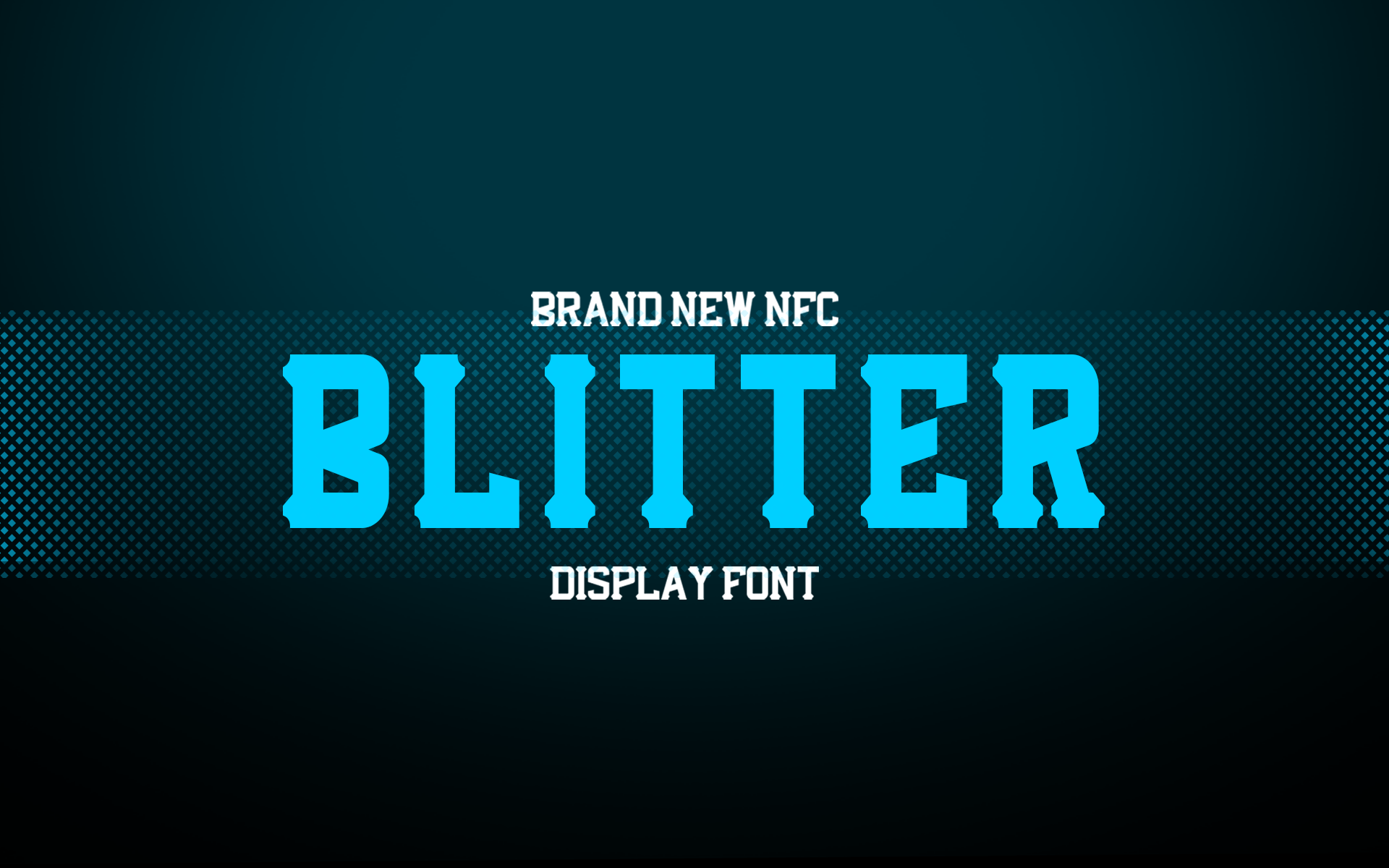
NFC BLITTER DISPLAY FONT
NFC BLITTER DISPLAY FONT , is our new item that suitable for your team logo, or community logo.
Great for Logo, Sticker, Jersey, Invitation Card, Brochure, etc.